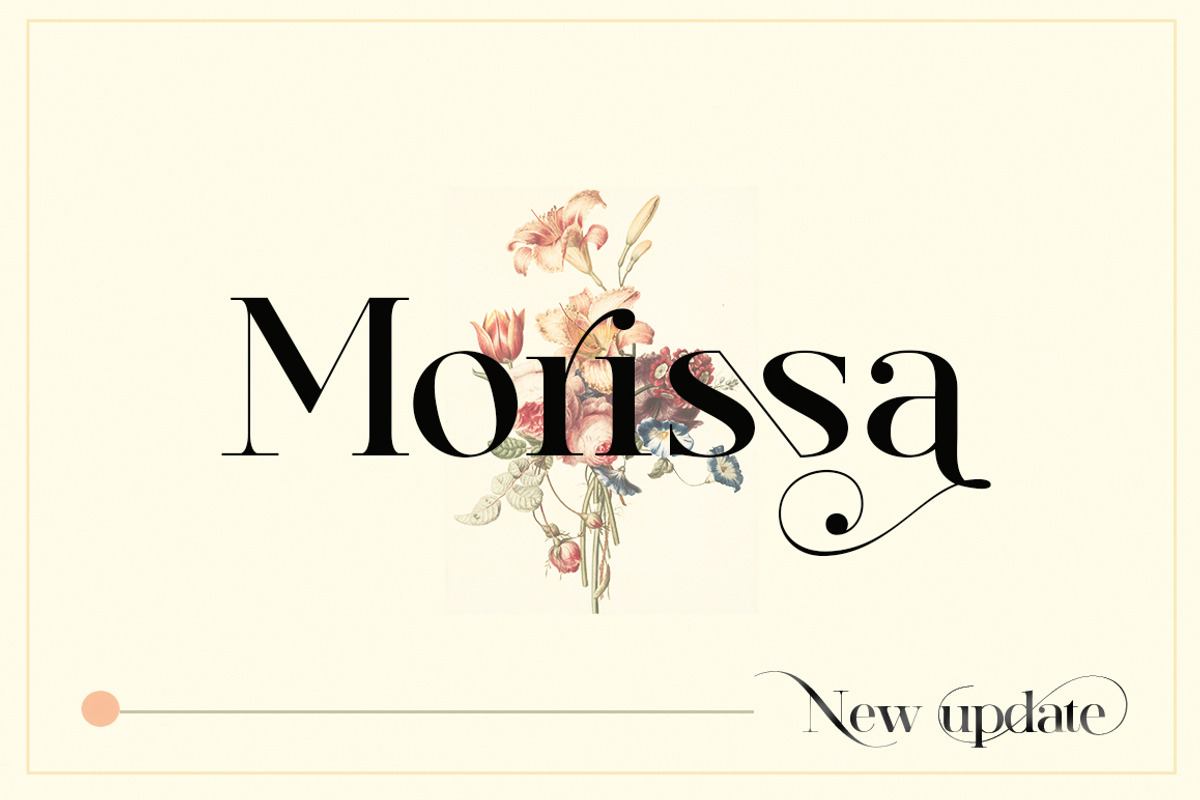
Morissa | Elegant Serif Font Free Download is a refined and sophisticated serif typeface that combines classic elegance with modern design elements. Featuring clean lines, balanced serifs, and smooth curves, this font is ideal for luxury branding, high-end editorial layouts, invitations, logos, and product packaging that requires a touch of sophistication.
Morissa | Elegant Serif Font Free Download brings timeless beauty and readability to any project. Its versatile nature allows it to shine in both print and digital designs, giving your work a professional and upscale feel. Whether you're working on a fashion line, a corporate brand, or an elegant event invitation, this font offers the perfect balance of style and function.